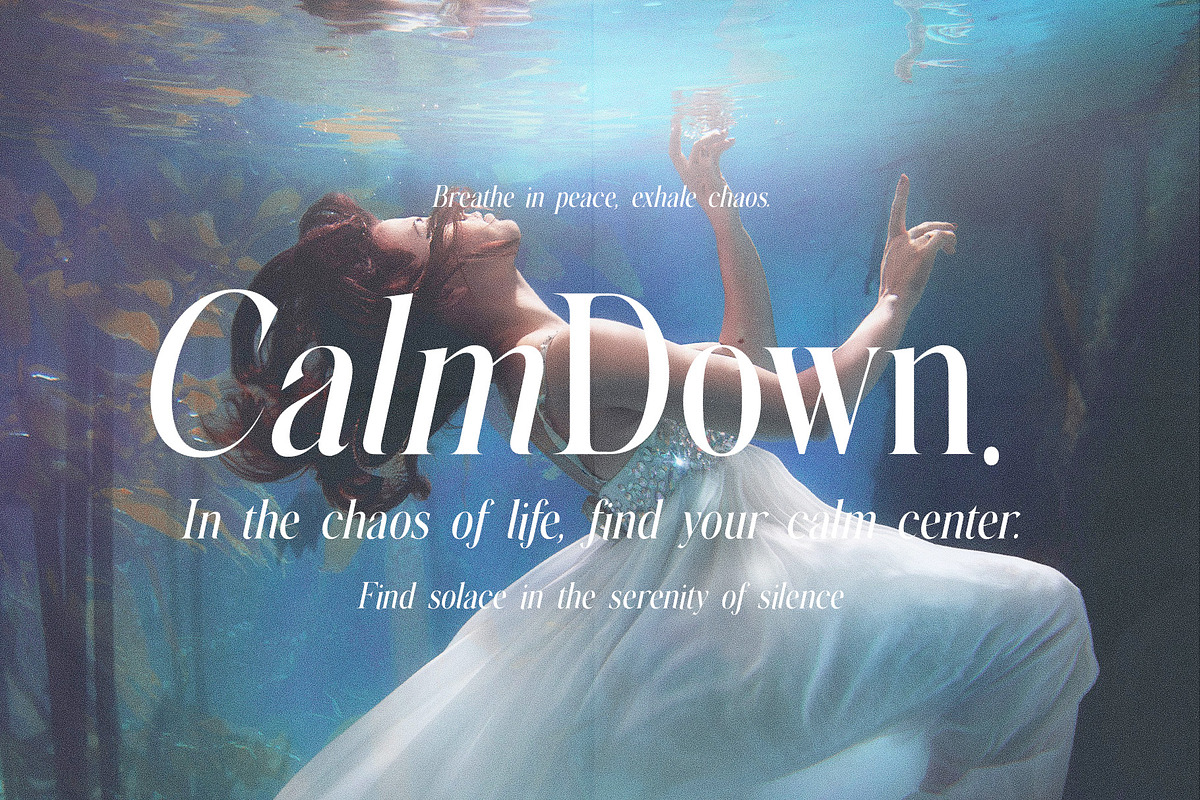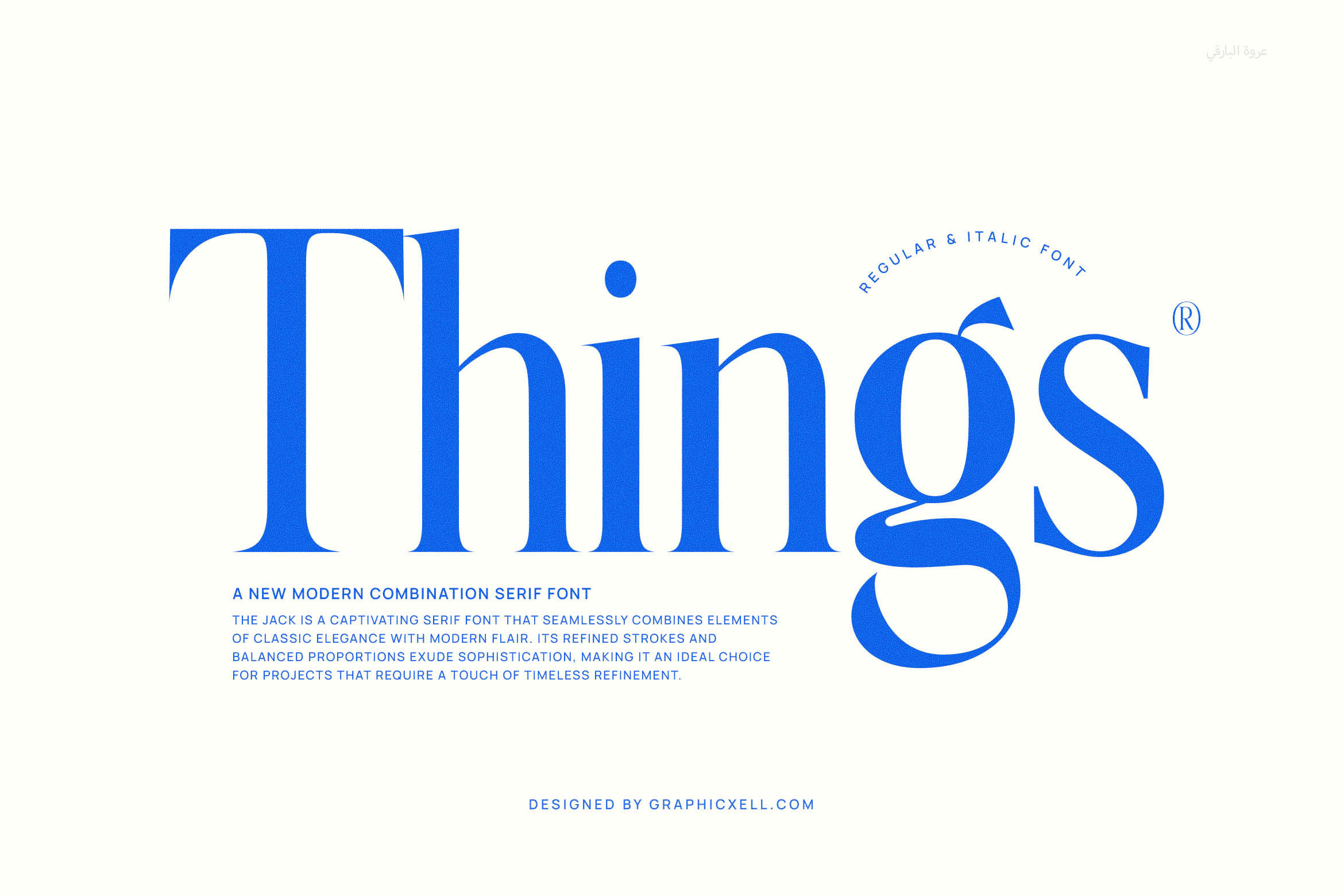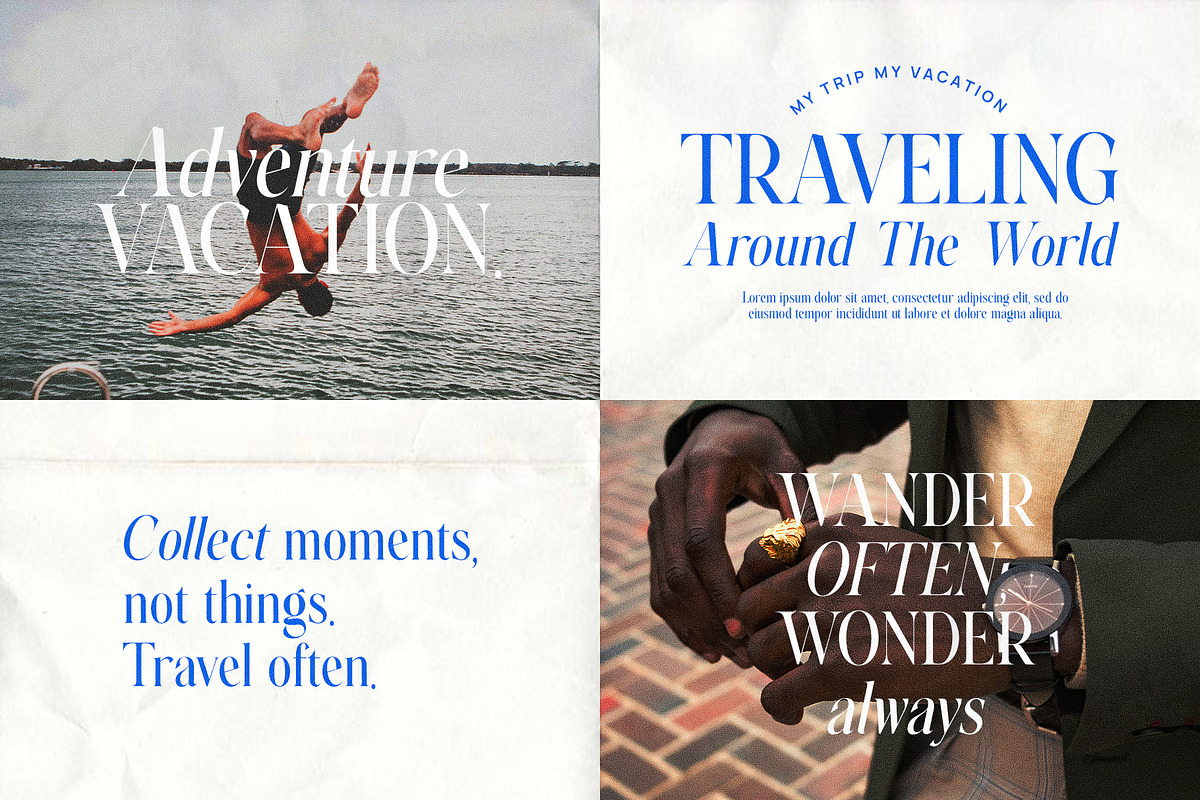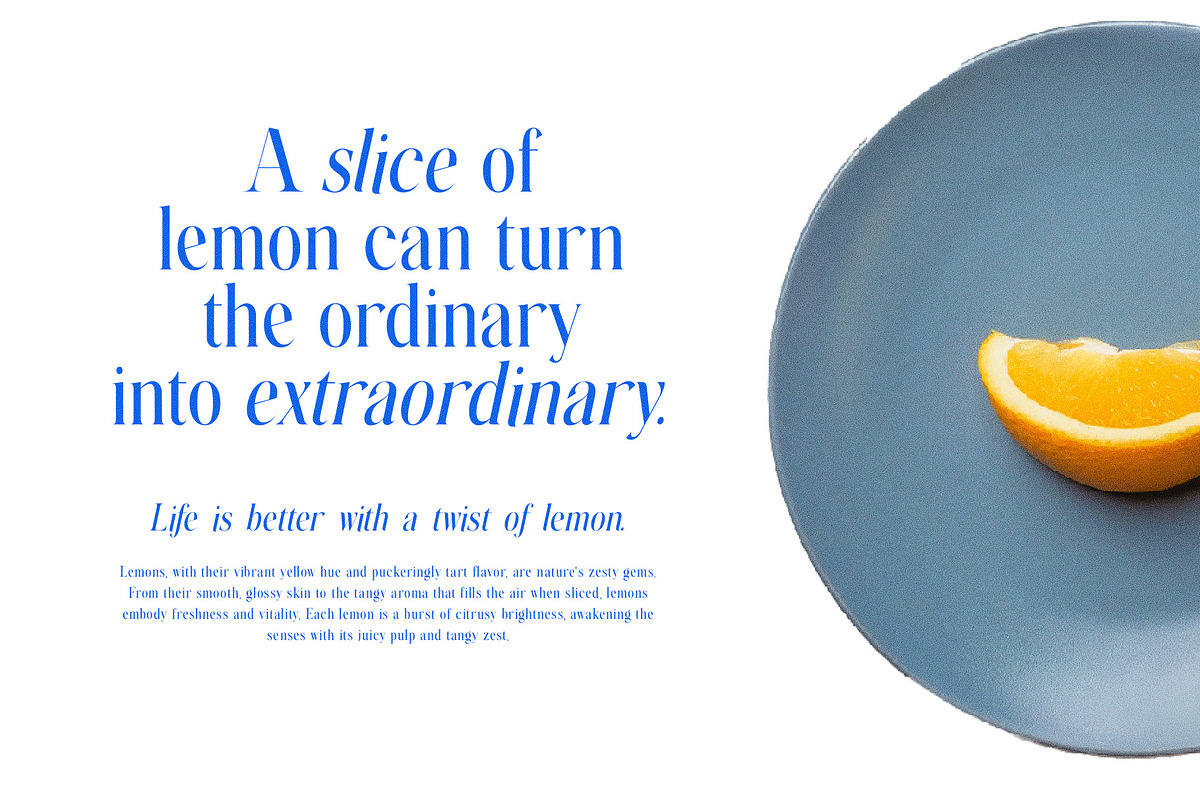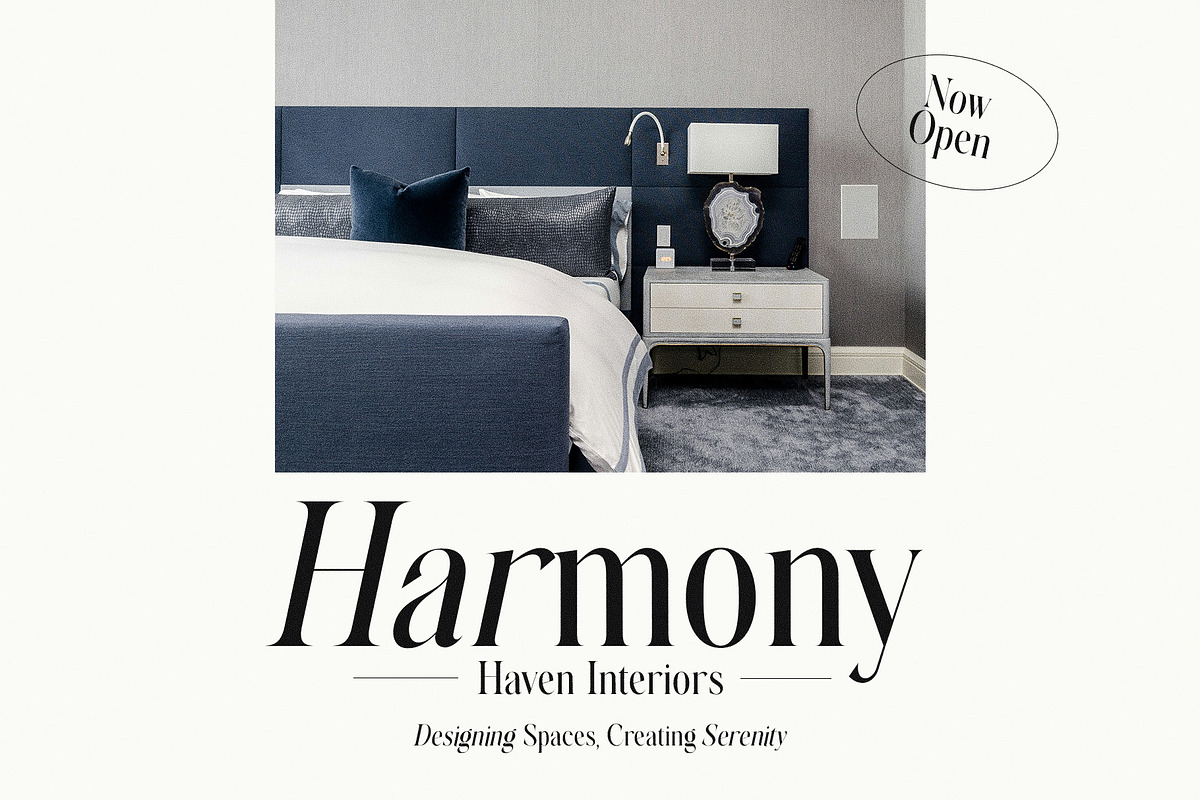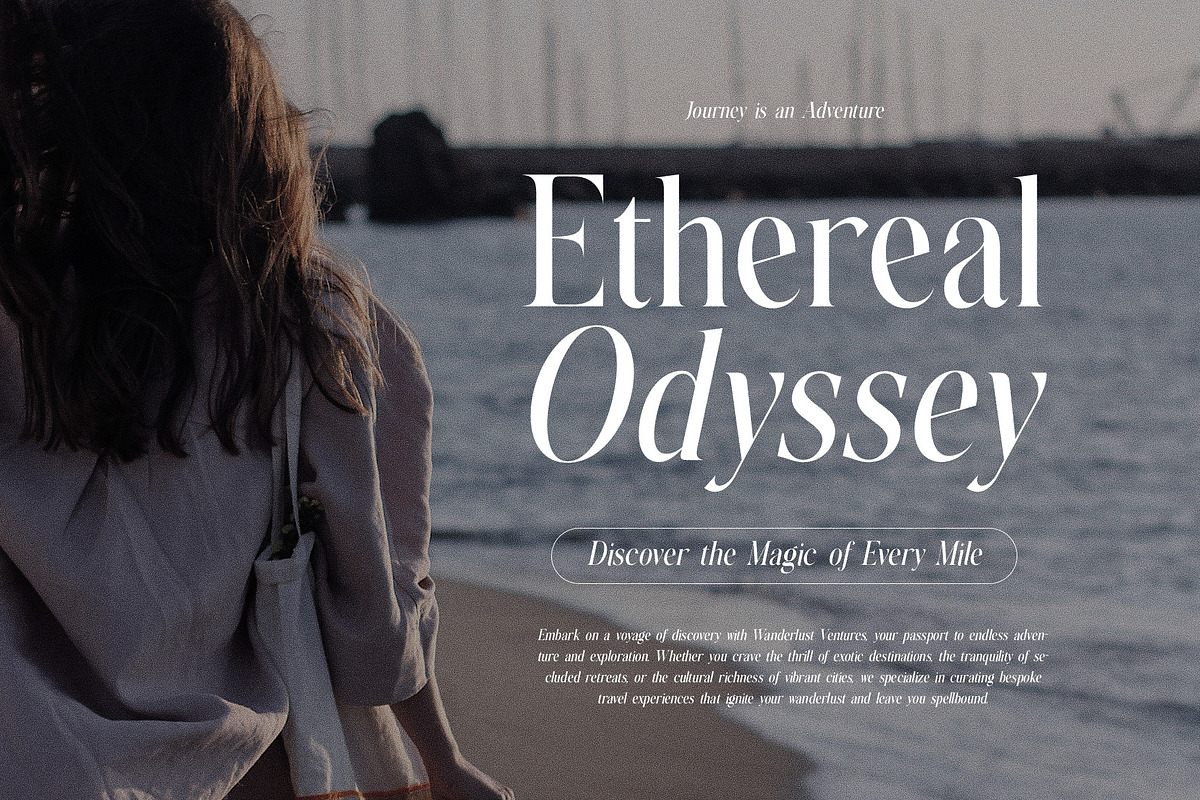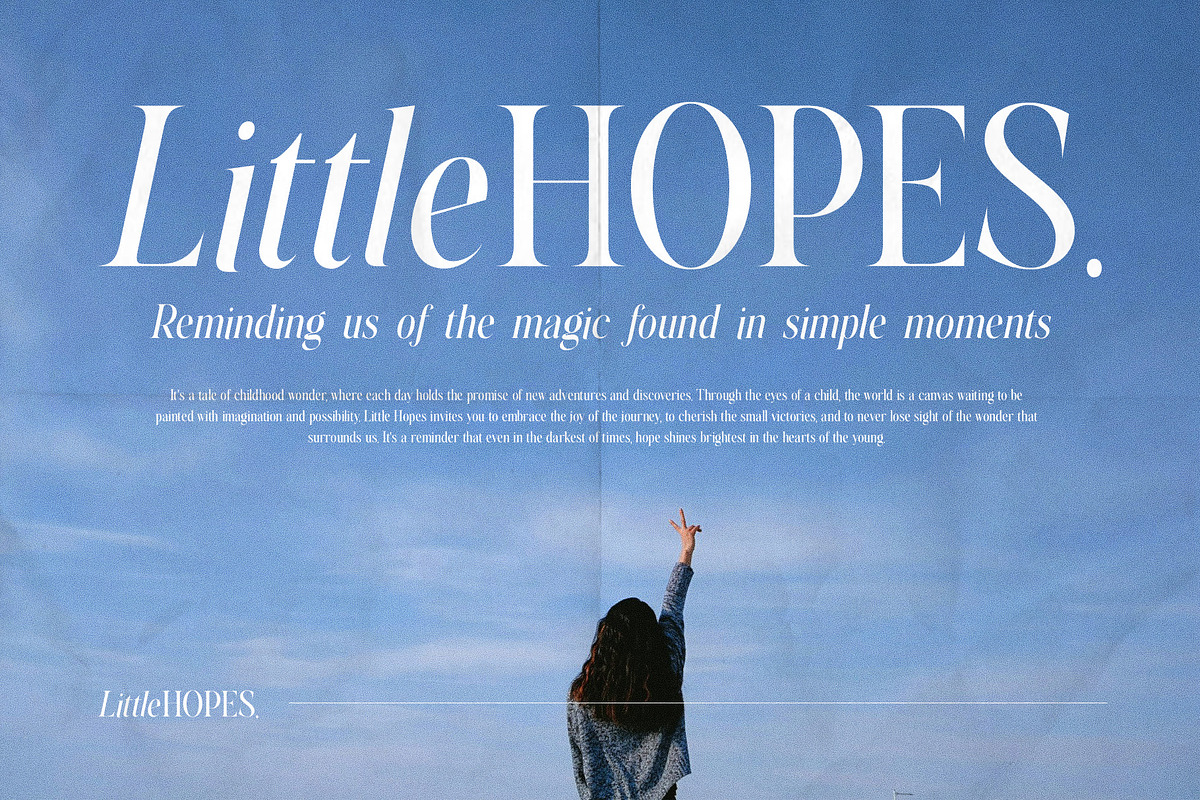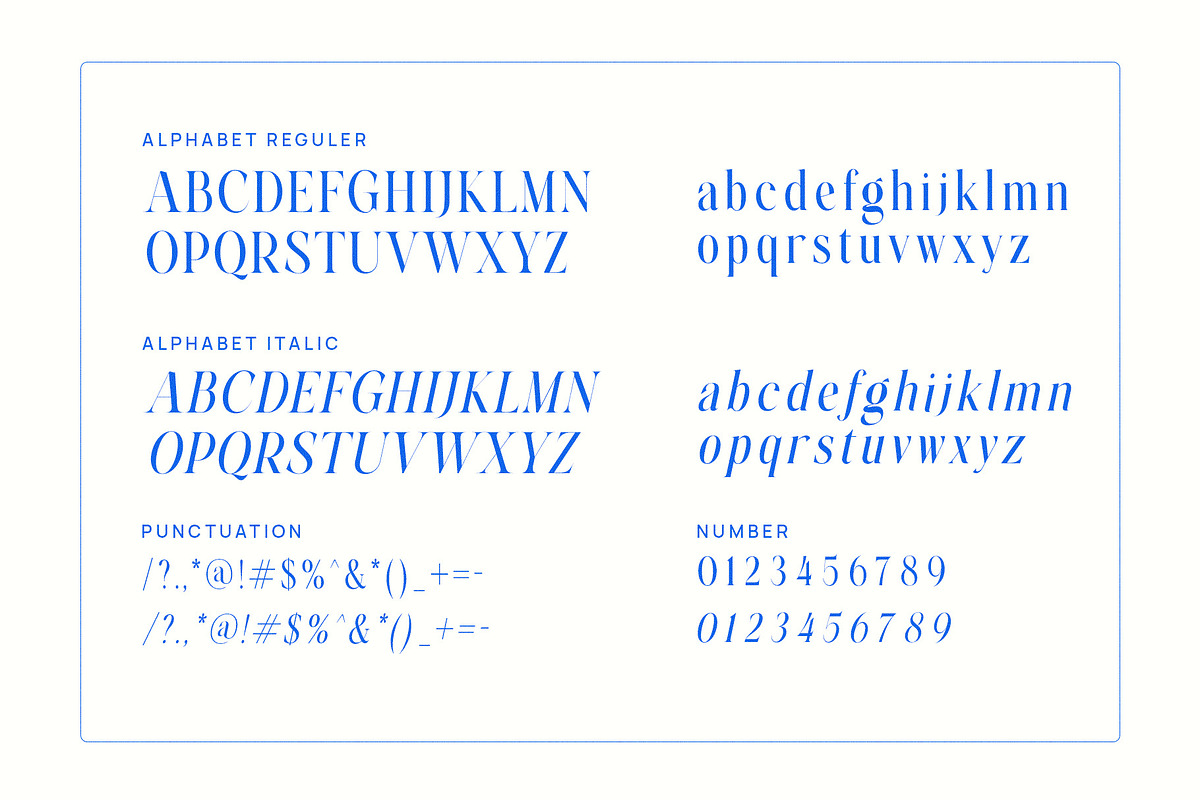
Things Modern Family Serif Font Text
Things Serif Font is a new modern font that looks captivating with its classic and elegant elements. Besides that, the modern flair makes it much more interesting. This serif font is a seamless craft, thanks to its refined strokes. Then, the balanced proportions add the sophistication impression. Because of that, this modern serif font is very ideal for any project. If you are working on a project requiring a timeless refinement touch, Things Serif Font could be a great idea to try. With a simple letterform, this form offers a high level of readability. So, this is recommended for a formal project related to graphic designs. It will be amazing to attract people’s attention by adding this font on your magazine, journal, product design, or any other project. As a graphic designer, having this font will be an advantage because it can be used for various purpose. And, Things Serif Font will help you to make a satisfying project.